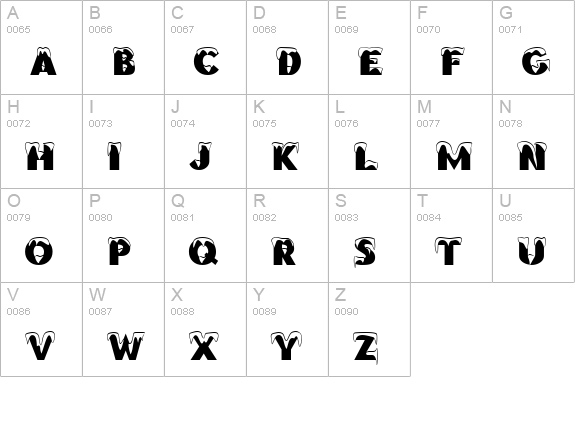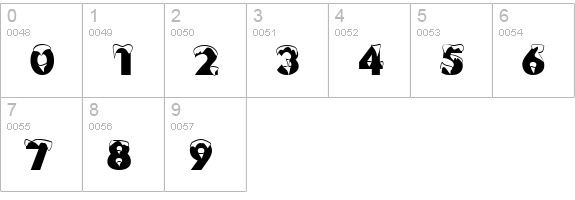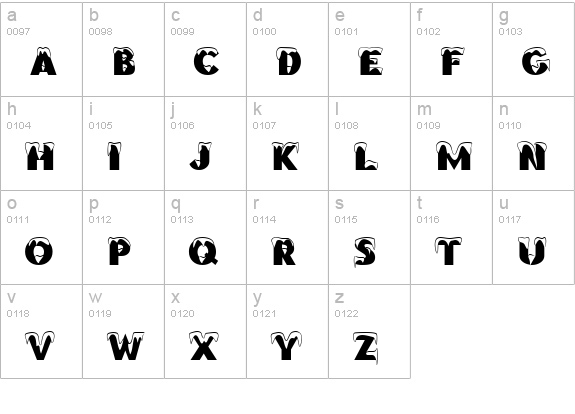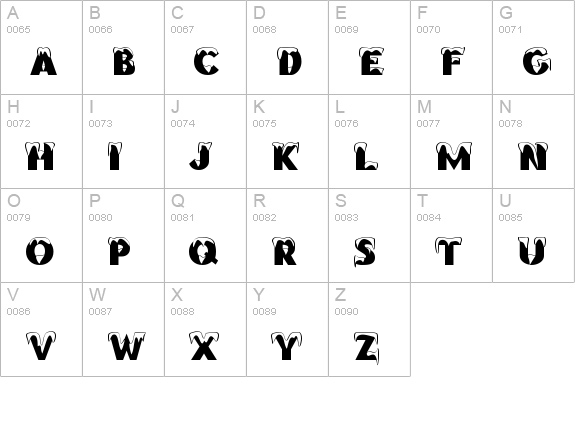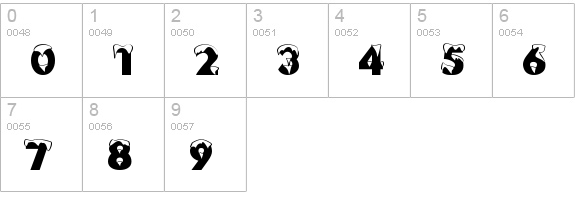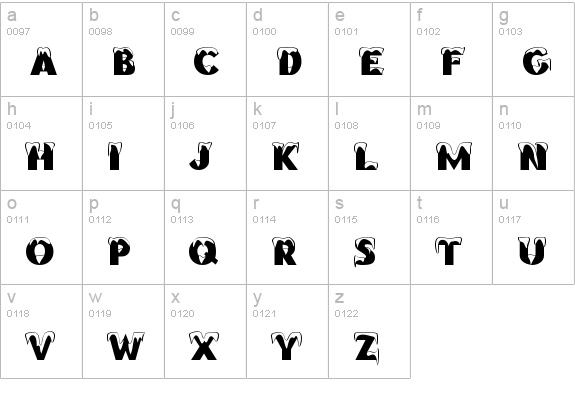
The Brrrrr font is a charming and whimsical typeface that is perfect for adding a touch of playfulness to your designs. With its unique frosty appearance, this font is ideal for winter-themed projects, holiday cards, or any design that needs a cool and refreshing look. The Brrrrr font features a fun and quirky style that is sure to make your text stand out. Best of all, this font is available for free download at FontsMarket.com, making it easy to add a touch of frosty flair to your projects without breaking the bank. Whether you're creating invitations, posters, or social media graphics, the Brrrrr font is a fantastic choice for adding a touch of winter magic to your designs.